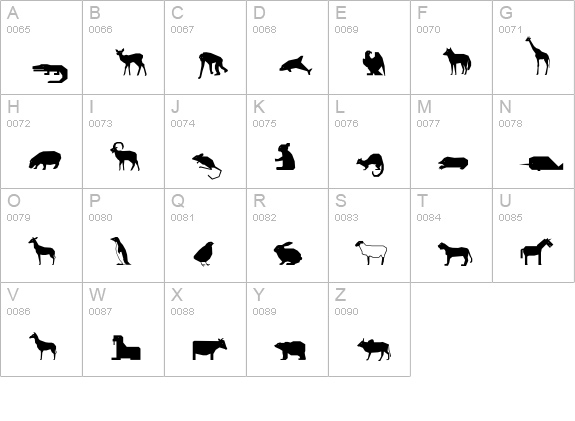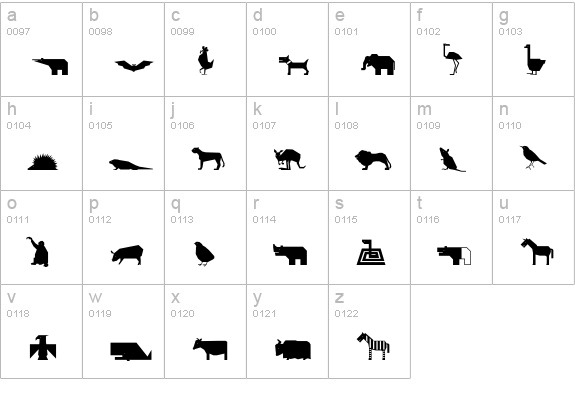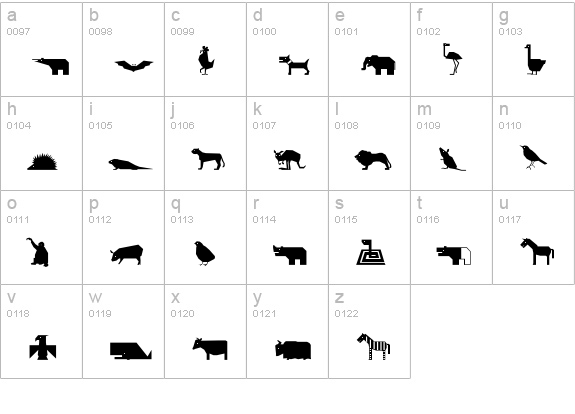
Introducing Animals font, a playful and whimsical typeface perfect for adding a touch of charm to your designs. With its cute animal-inspired characters, this font is sure to bring a smile to anyone who sees it. Animals font is the perfect choice for children's books, posters, greeting cards, and more. What's even better is that Animals font is available for free download at FontsMarket.com. So go ahead and add a fun and lively element to your projects with this delightful font. Let your creativity run wild with Animals font!